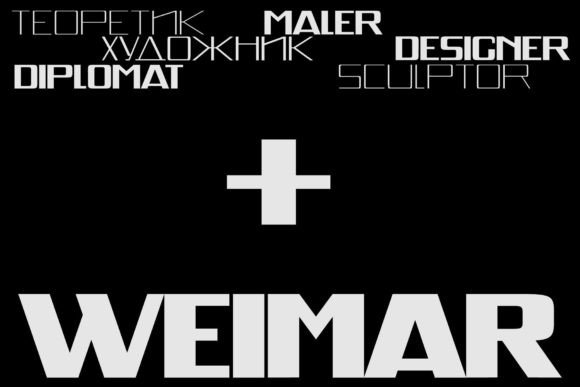
Unleash the Cinematic Grandeur of Your Designs with Weimar Font: The Ultimate Canvas for Movie Posters
Journey into the realm of cinematic storytelling with Weimar Font, a sans serif masterpiece that captures the essence of movie posters and elevates your designs to epic proportions. Inspired by the bold aesthetics of Bauhaus and VKhUTEMAS, Weimar Font exudes a striking presence that commands attention on any screen or printed medium.
Dive into a symphony of contrasts as Weimar Font juxtaposes delicate curves with bold letterforms, echoing the interplay of light and shadow that defines cinematic narratives. Its architectural aesthetics evoke a sense of solidity and permanence, reminiscent of modernist buildings that have stood the test of time. Weimar Font is more than just a font; it's a portal to a world of visual storytelling, where every letter becomes a character and every word a scene.
Witness the transformative power of Weimar Font as it breathes life into your movie posters, logos, magazine headlines, and book covers. Its versatility knows no bounds, adapting seamlessly to a myriad of creative endeavors. Whether you seek to evoke the nostalgia of classic cinema or capture the pulse of contemporary storytelling, Weimar Font is your ultimate companion.
Indulge in the architectural symphony that is Weimar Font, where each letterform resembles a carefully crafted building block, contributing to the overall structure of your design. Its sharp angles and clean lines create a sense of order and precision, while its contrasting curves add a touch of elegance and dynamism. Imagine your movie posters adorned with Weimar Font, instantly captivating the audience's attention with its bold and evocative presence.
Embrace the cinematic spirit with Weimar Font and unlock a world of creative possibilities. Let your designs take center stage, exuding an aura of sophistication and timeless appeal. From classic Hollywood blockbusters to modern indie darlings, Weimar Font is the perfect choice for designers seeking to leave an unforgettable mark on the world of visual storytelling.